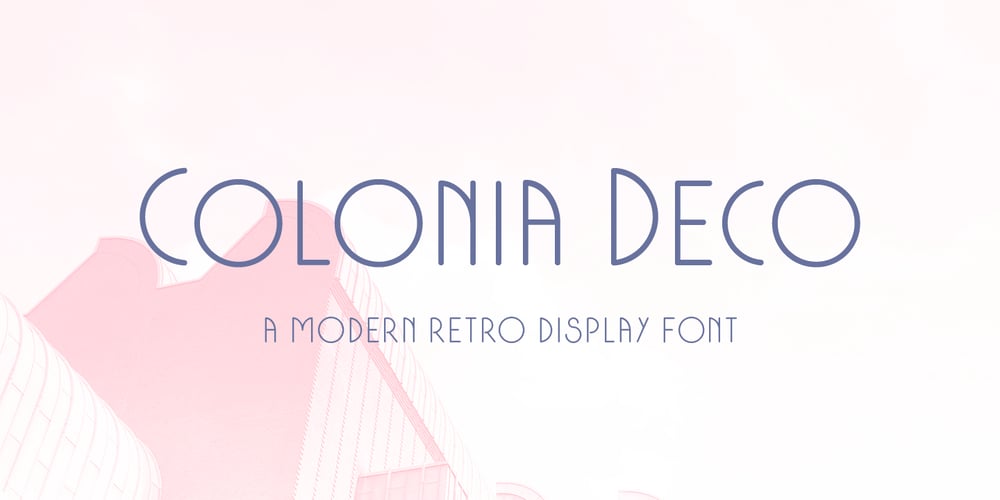
Colonia Deco Font Family was designed by Angie Biso and published by Typerookie. Colonia Deco contains 2 styles and family package options. Named after Cologne, the city it was born, Colonia Deco is a modern Art Deco inspired display font. The mono line Sans Serif with a touch of vintage is a perfect choice for designs with a luxurious but minimalist look and feel. Used in headlines, logos or product packaging it will match beautifully with curly script fonts. The typeface can be used as an all caps version or by blending in the lower case glyphs – which function as real small capitals by design. Giving the “New Golden Twenties” a modern retro look this elegant typeface also comes with multilingual support and a variety of special characters, as well as two weight variations.